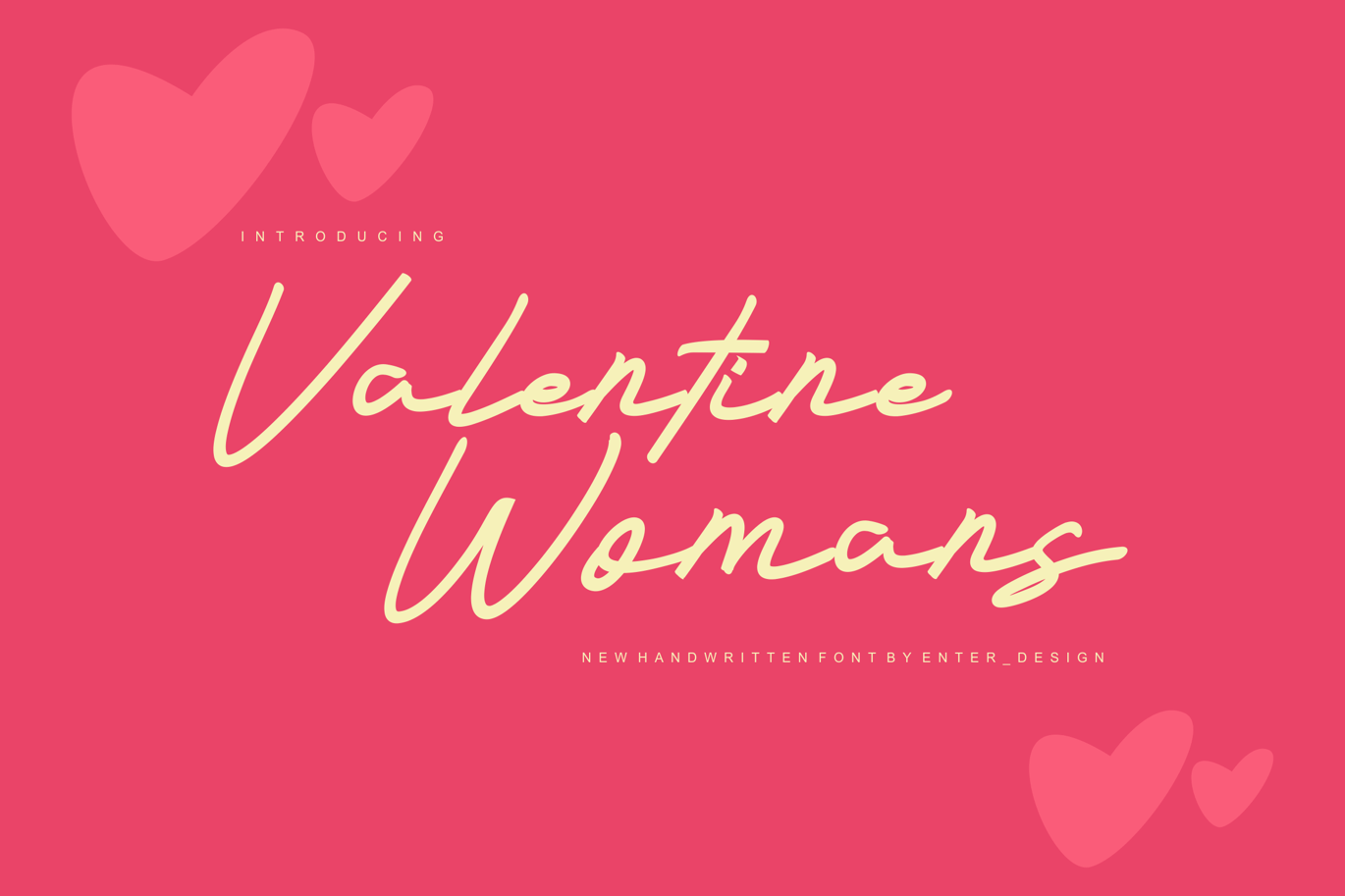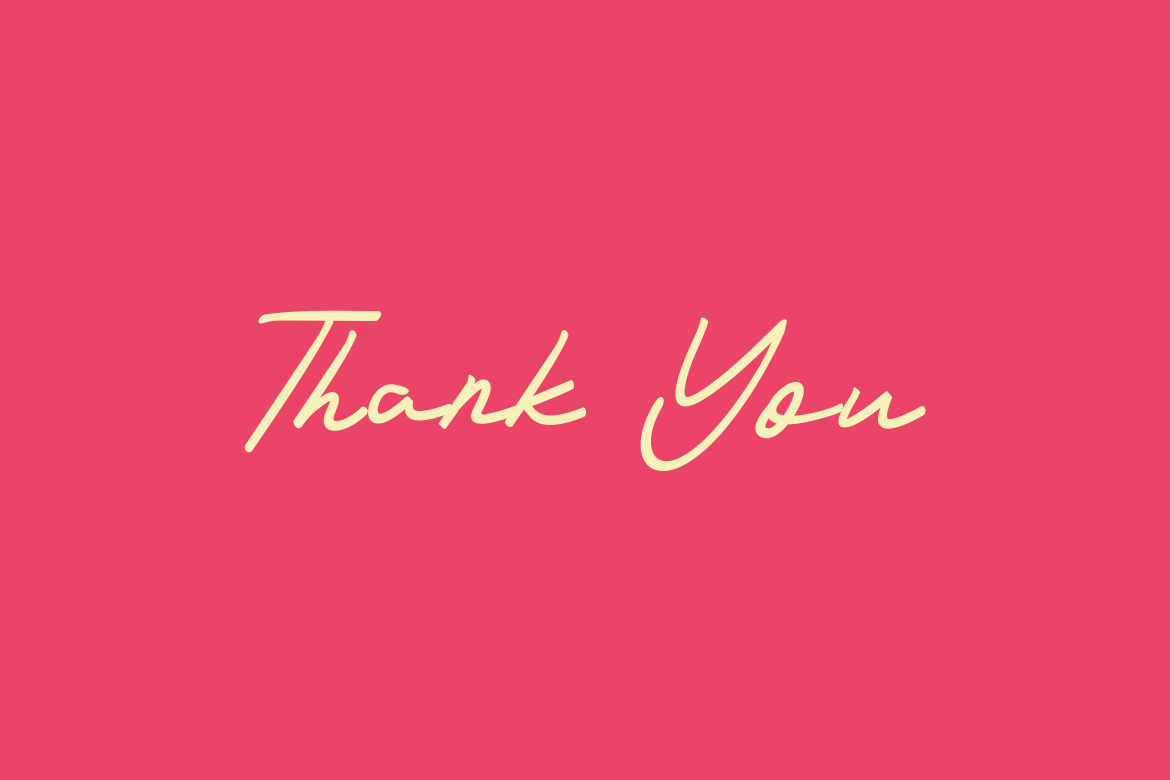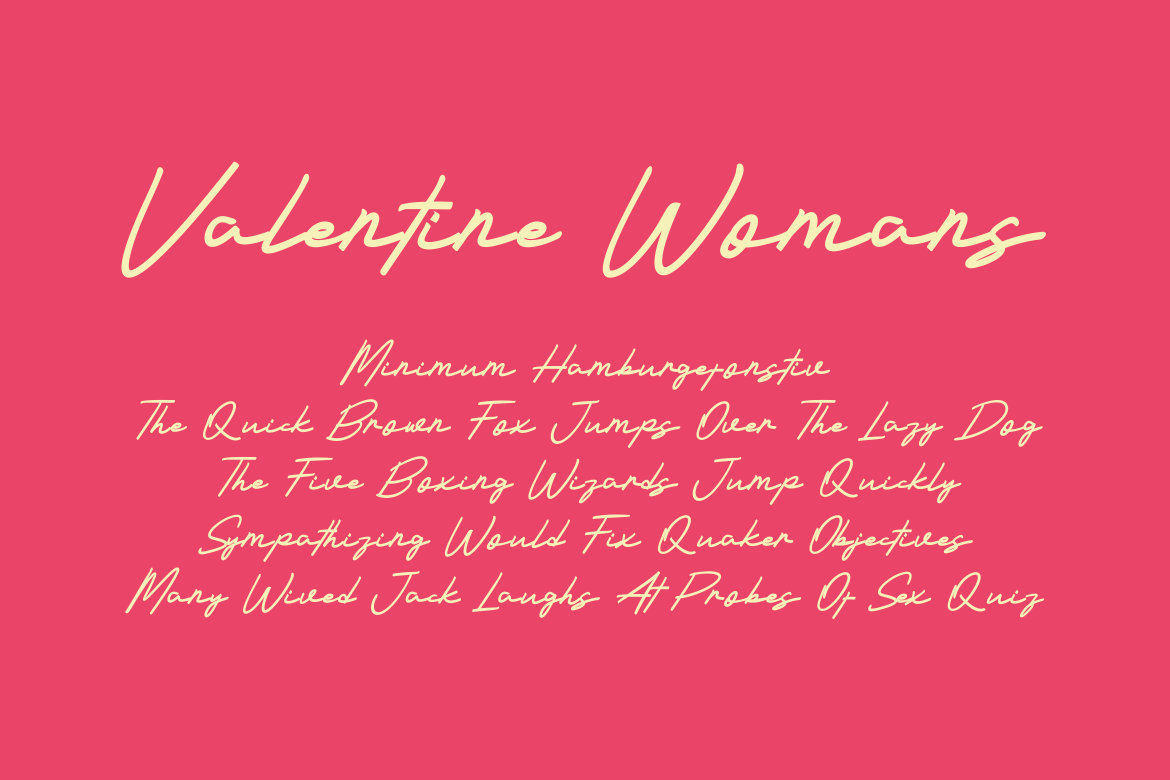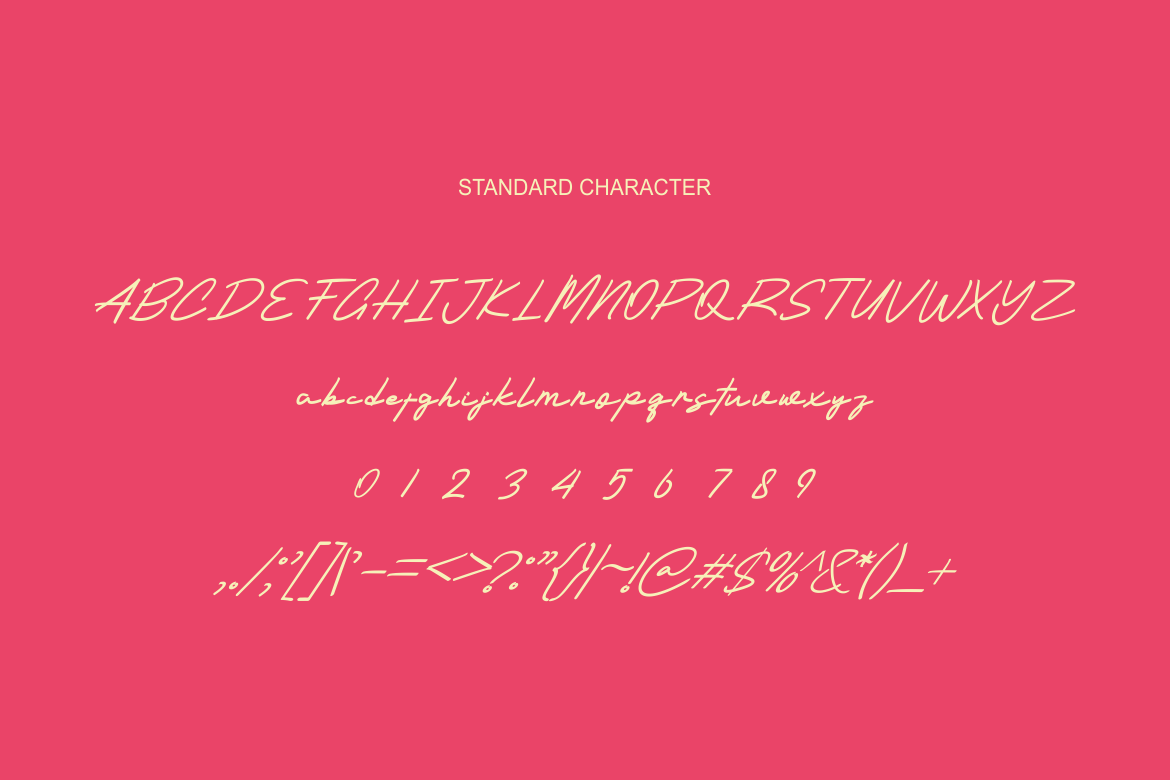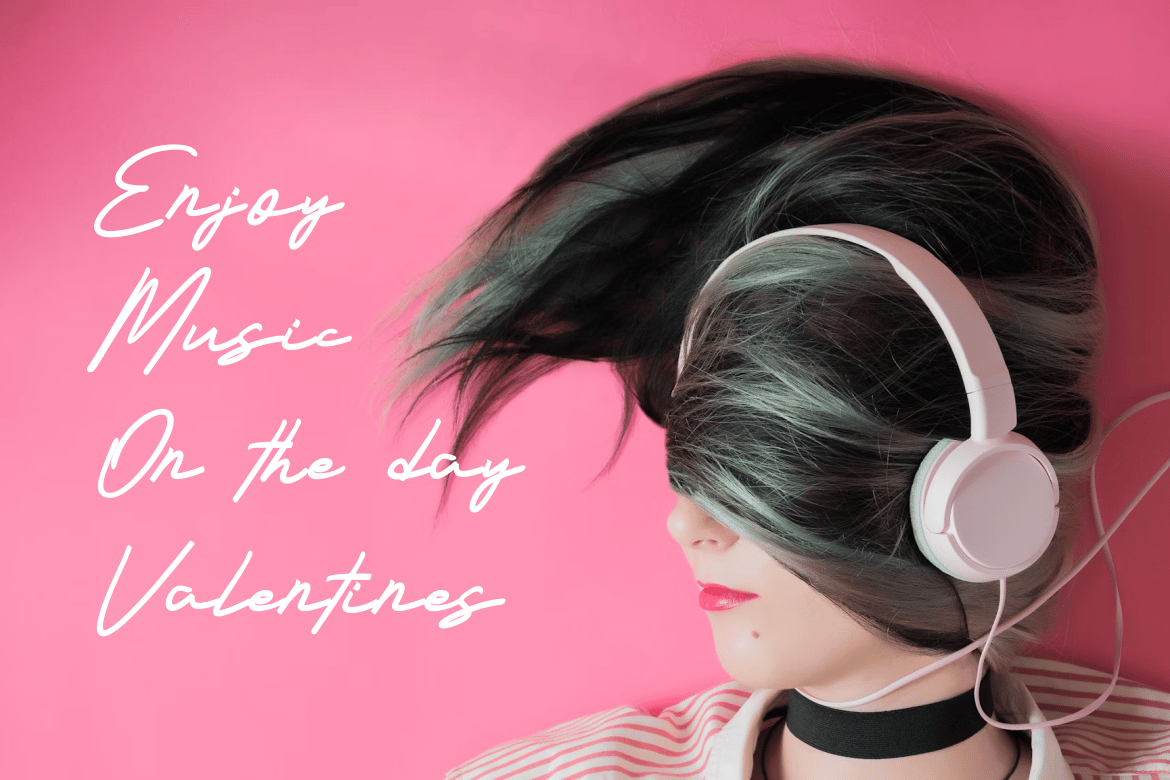
Valentine Womans Font
Introducing our new product Valentine Womans Font – Modern Font
Valentine Womans Font – Modern Font is a bold and authentic display font. The font is suitable for any branding project like logo, esport, and many more. outstanding in a wide range of contexts.